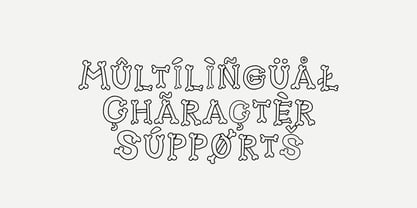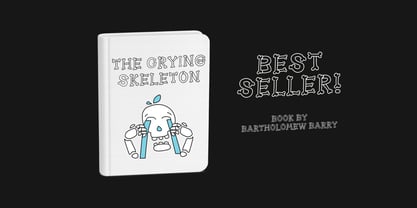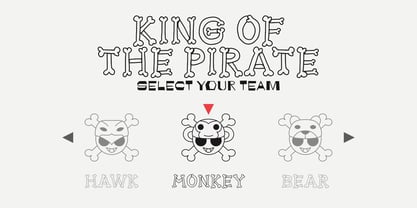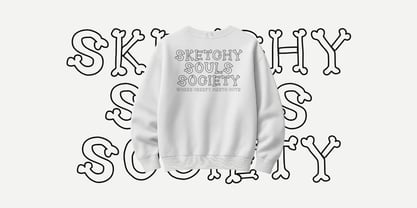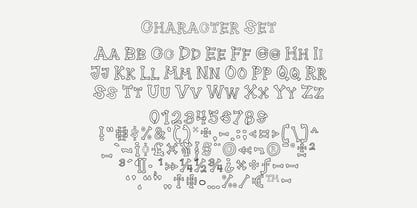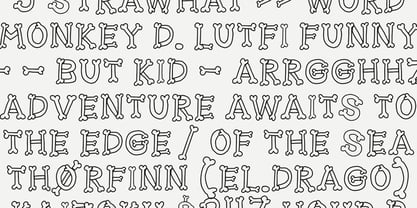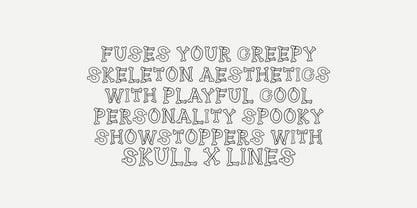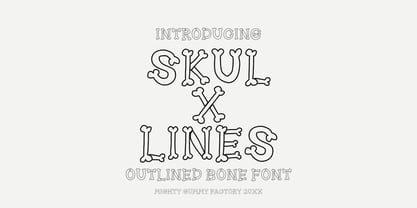
MGF Skul x lines
by Mighty Gummy Factory
The MGF Skul x lines Font Family was designed by Gumilang Anggara Ruslan and published by Mighty Gummy Factory. MGF Skul x lines contains 1 styles. More about this family
SKUL X LINES is a bold bone-inspired display font that mixes creepy skeleton aesthetics with playful fun. With its chunky bone-shaped letters and lined details, this font is ideal for Halloween branding, spooky merchandise, event posters, candy packaging, children’s books, and seasonal social media content. Whether you’re creating logos, invitations, or themed designs, SKULL X LINES instantly delivers a spooky-yet-fun vibe that grabs attention.
Style & Vibe:
SKUL X LINES is a bold display font made of bones, combining spooky vibes with a quirky, playful twist. It’s perfect for creating designs that feel scary, fun, and eye-catching at the same time.
Intended Market Vibe:
Perfect for Halloween themes, spooky parties, edgy branding, children’s book covers, merchandise, and packaging.
Letterform Structure:
Thick, rounded letterforms shaped like bones with lined details that add depth and character. The mix of boldness and cartoonish curves makes it approachable yet creepy.
Best Use Cases:
• Halloween Branding (logos, posters, invites, party kits)
• Social Media Content (Instagram stories, TikTok covers, spooky reels)
• Packaging & Merch (snacks, candy, quirky t-shirts, tote bags)
• Children’s Books & Story Titles
• Events & Seasonal Campaigns
Turn your designs into spooky showstoppers with SKUL X LINES the bold bone font that fuses creepy skeleton aesthetics with playful personality.
Why Designers Love It:
• Bone-Inspired Design → Thick strokes shaped like cartoon bones.
• Bold & Fun → Perfect mix of spooky and playful.
• Highly Versatile → Works across print, packaging, merch, and digital media.
• Instant Theme → No need for extra graphics, the font sets the mood on its own.
Perfect For:
• Halloween posters & invitations 🎃
• Spooky packaging & merchandise 🛍️
• Branding with quirky edge 🦴
• Kids’ book titles & story covers 📚
• Seasonal campaigns & social posts 📱
Designers: Gumilang Anggara Ruslan
Foundry: Mighty Gummy Factory